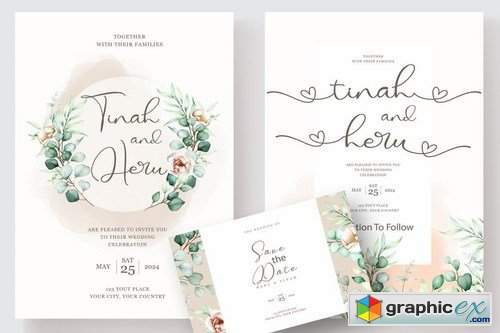
Mood Swings
Mood Swings Modern Script Mood Swings is a delicate, elegant, and flowing handwritten font. It has beautiful and well-balanced characters and as a result, it matches a wide pool of designs. Mood Swings features a varying baseline, smooth lines, gorgeous glyphs, and stunning alternates. Add it to your most creative ideas and notice how it makes them come alive!